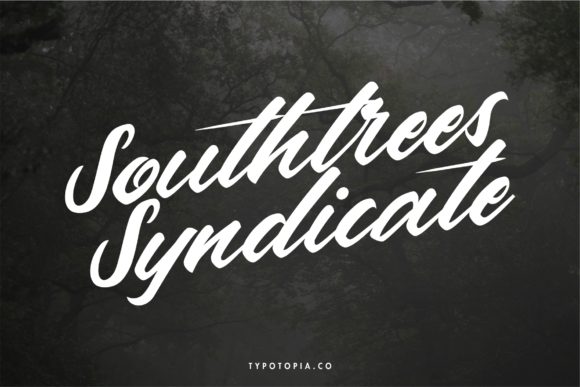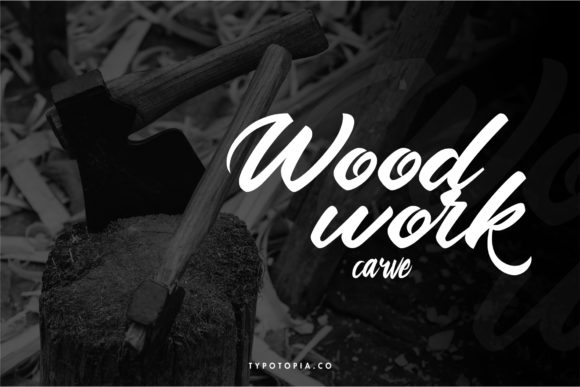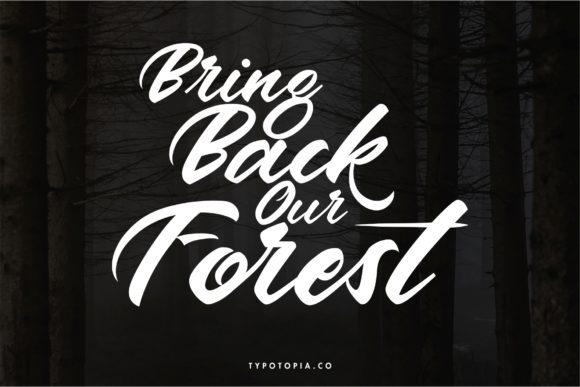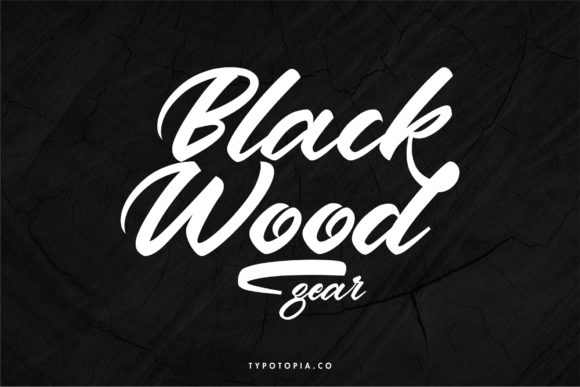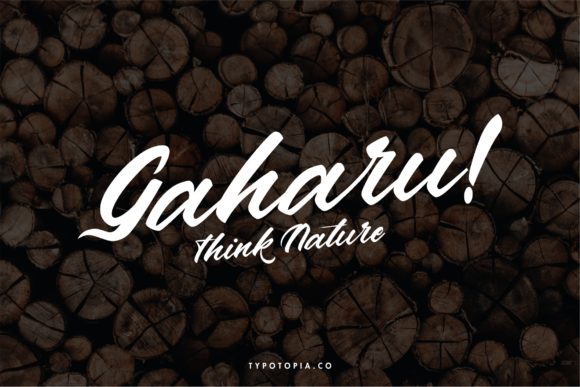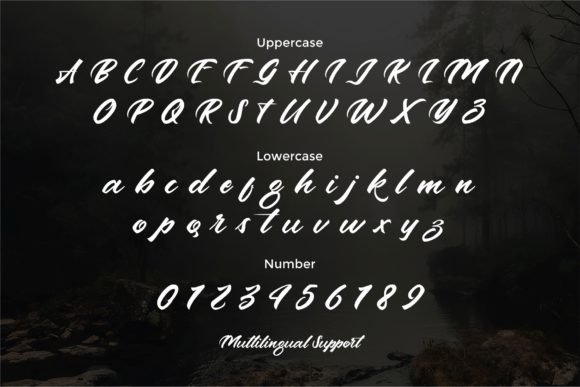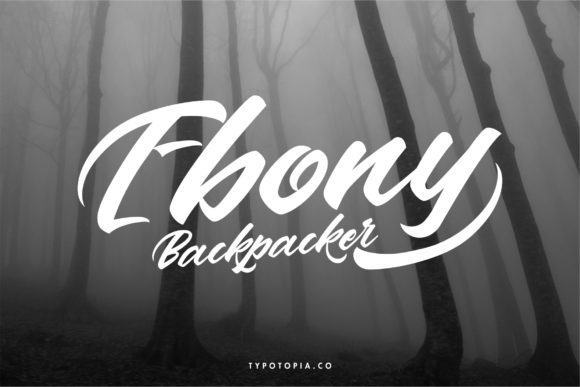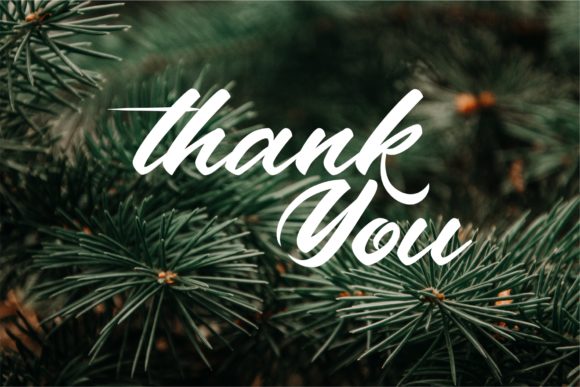
Andalas Font
About Andalas Font
Andalas is an exquisite handwritten font, created with the help of a lovely brush pen. It was masterfully designed to become a true favorite. Andalas maintains its classy calligraphic influences while feeling contemporary and fresh. Fall in love with it and bring your projects to the highest levels!